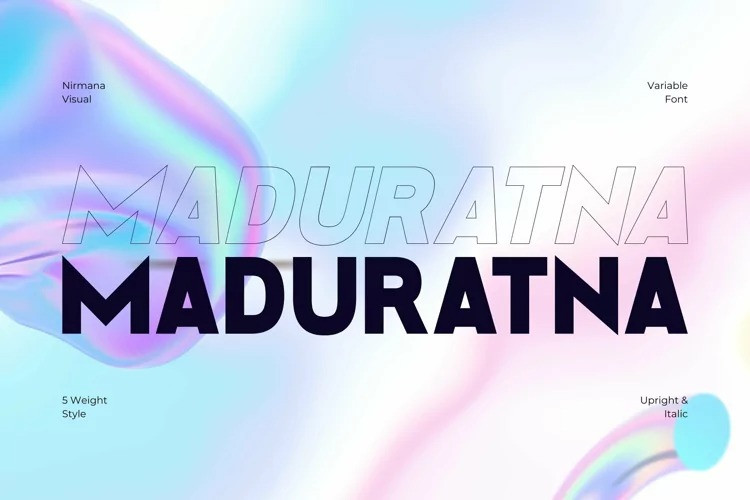
Maduratna Font
Maduratna Sans Serif Font is a luxury font,modern sans serif. full set of lowercase and uppercase letters, numerals and punctuation, multilingual symbols.
Beautiful typographic harmony for a diversity of design projects, including logos & branding, social media posts, advertisements & product designs.